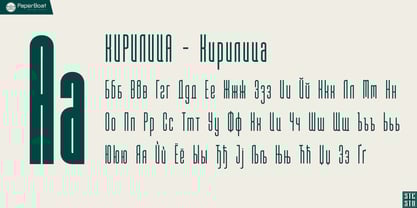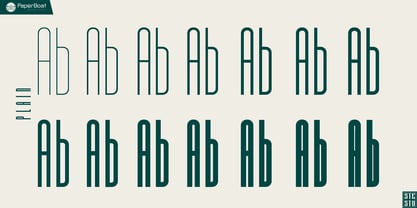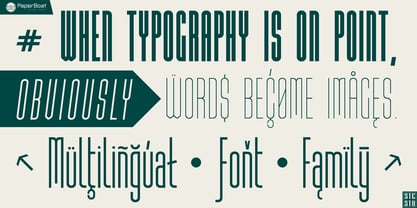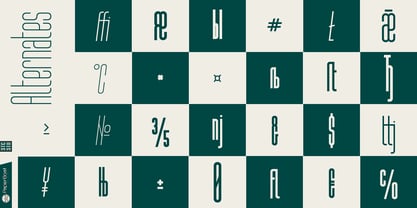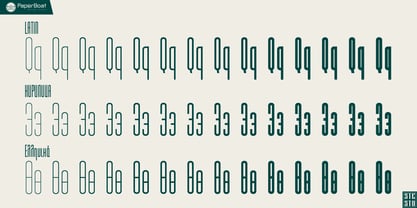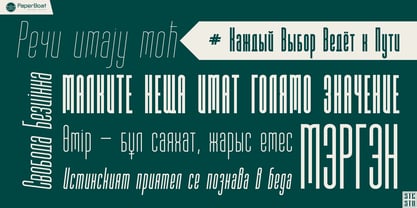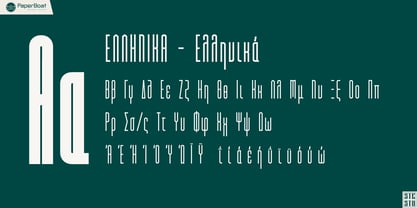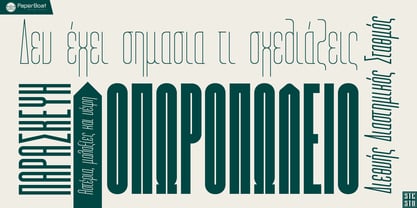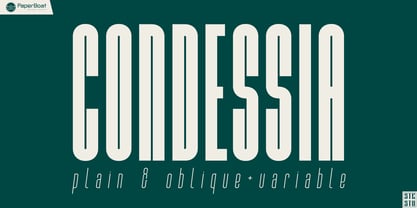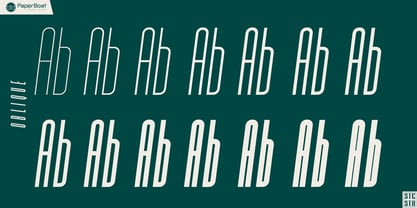
Condessia
The Condessia Font Family was designed by Stefan Stoychev and published by SSFD Studio. Condessia contains 31 styles and family package options. More about this family
Condessia is a contemporary typeface crafted to enhance any visual identity with sophistication, flexibility, and a distinctive style. It features modern, condensed proportions paired with smooth, confident curves, creating a refined aesthetic that excels in branding, editorial layouts, packaging, advertising, and digital experiences. The family offers a diverse range of weights—from delicate Hairline to bold Ultra Black—enabling designers to adjust tone, hierarchy, and emphasis with precision. Both Upright and Oblique styles enrich typographic expression, while variable functionality allows for seamless interpolation across the spectrum. Whether you require ultra-thin elegance, confident mid-weights, or bold headlines, Condessia adapts effortlessly to any creative vision. Its finely tuned spacing, balanced vertical rhythm, and carefully crafted contrast ensure excellent readability and striking impact. Clean, versatile, and unmistakably modern, Condessia is designed to help your work convey clarity, confidence, and contemporary sophistication.
Stefan Stoychev is a Bulgarian type designer and graphic designer, and the founder of SSFD Studio — Stefan Stoychev Font Design. His work focuses on typeface design, typography and professional font development, creating contemporary type families with an emphasis on character, functionality and technical precision. His typefaces include AutopromPro, Block, Condessia, Heavyset, LyuLin, Nulato and Skaklia.